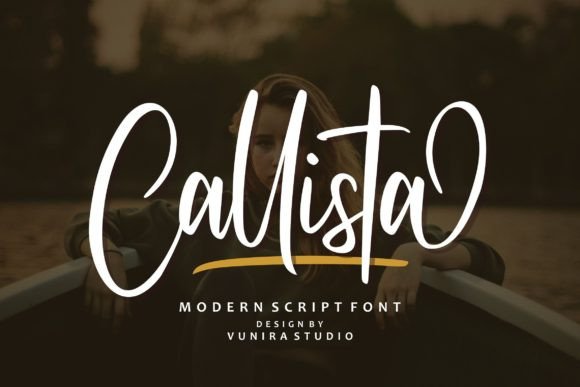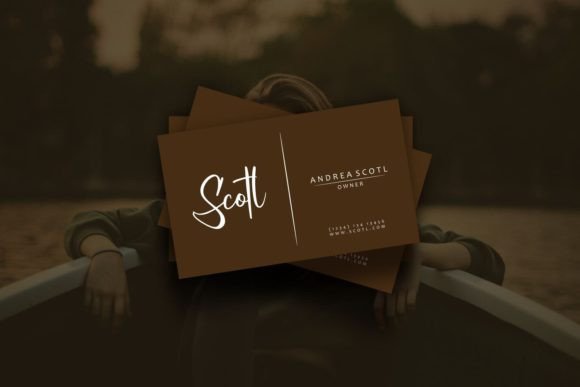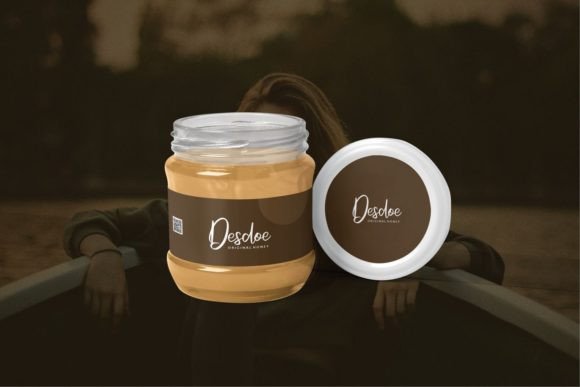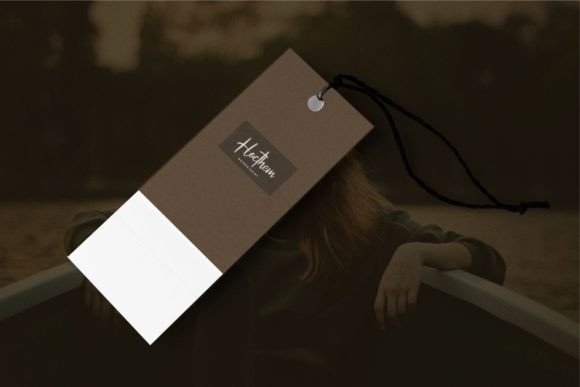
Callista Font
About the Callista Font
From logos to headlines, the Callista Font is the perfect choice for making a lasting impression. Callista – Modern Script is a stylish and contemporary font that adds a sleek touch to your projects. With smooth, flowing lines, this font brings a modern flair to your text. Perfect for a variety of uses, from invitations to branding, Callista effortlessly blends sophistication with a touch of trendiness. Upgrade your designs with the clean and elegant aesthetics of Callista – Modern Script.
Callista excels in applications requiring a touch of sophisticated elegance, such as logo design, short headlines, invitations, and packaging where its stylish curves create a memorable impression. It’s also well-suited for short-form marketing materials or social media graphics. However, its script nature makes it less suitable for body text or lengthy paragraphs, compromising readability. Avoid using it for UI elements or situations demanding high legibility.
For optimal pairings, consider contrasting Callista with a clean sans-serif like Montserrat for a modern feel, or a classic serif such as Garamond for a more traditional yet balanced aesthetic. A geometric sans-serif like Futura could also create a striking juxtaposition, while a playful, rounded sans-serif like Bebas Neue offers a different kind of contrast.
Callista projects a modern, elegant, and slightly playful personality. Its sophisticated curves suggest a brand focused on style, luxury, or creativity, while maintaining a contemporary edge.
Callista Font Usage Examples
Callista Font Example